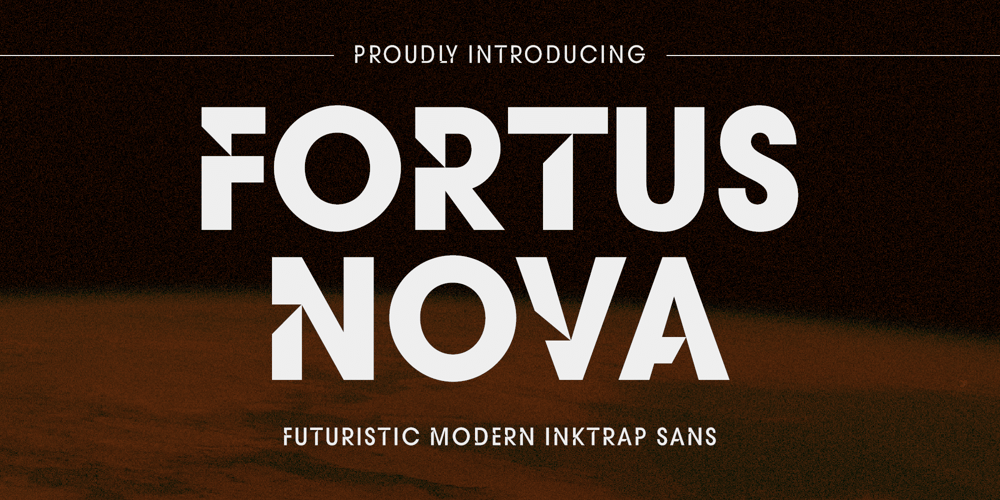
Fortusnova Font Family was designed by Dede Kurniawan and published by Creatifont Studio. Fortusnova contains 10 styles and family package options. Fortusnova – a cutting-edge sans serif font that defies convention. Its unique feature, the ink trap cut, creates a sense of modernity and innovation, allowing for sharp, edgy lines that make each character stand out. Fortusnova boasts a remarkable range of weight variations, from bold and robust to sleek and delicate, offering versatility that adapts to your design needs. With a futuristic aesthetic and an eye-catching design, Fortusnova is the perfect choice for projects that demand a blend of contemporary style and typographic flexibility.A SUMMARY OF WHAT’S INCLUDED: Standard Character A-Z, a-z, 0-9, Punctuation & symbols 11 font Styles Alternates and Ligatures Works on PC & Mac Simple installation Accessible in Adobe Creative Suite (Ai, Ps, Id, etc.) even work on Microsoft Word. PUA Encoded Characters – Fully accessible without additional design software. 🌟If you come across any issues or notice anything we might have overlooked while using this product, please feel free to reach out to us. We greatly value your feedback as it helps us enhance and refine our products. Thank you!